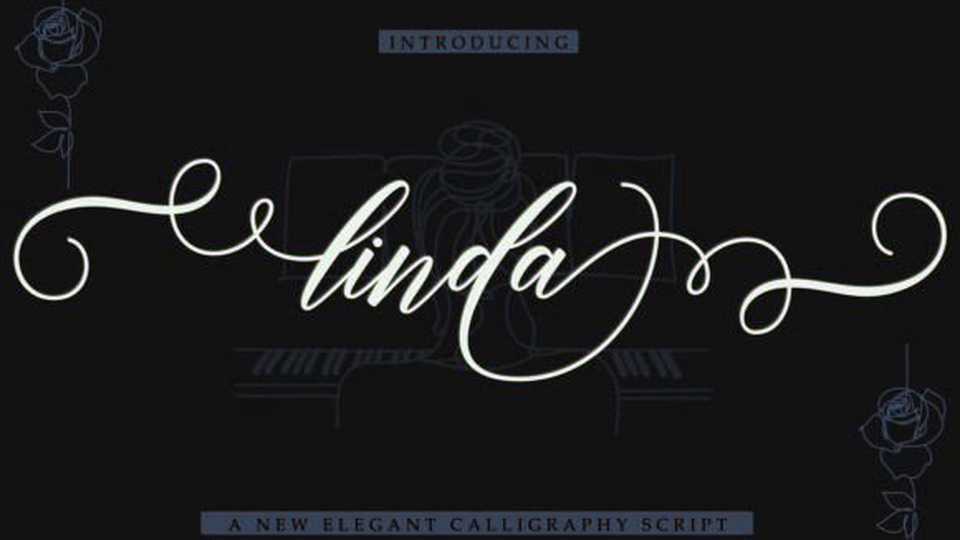
Download Linda font, a modern and dynamic handwriting typeface that features graceful forms with curved terminals, creating the impression of elegant yet energetic handwriting.